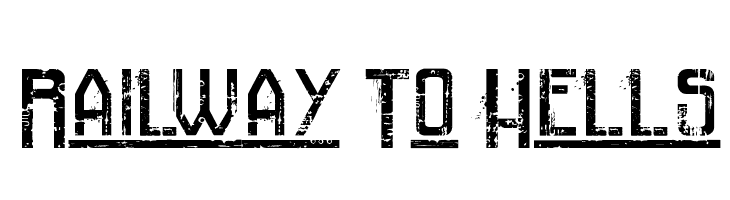
A bold, distressed font with a rugged, industrial style.
A bold, distressed font with a vintage, handcrafted appearance.
A bold, distressed font with a rugged, grunge-like texture.